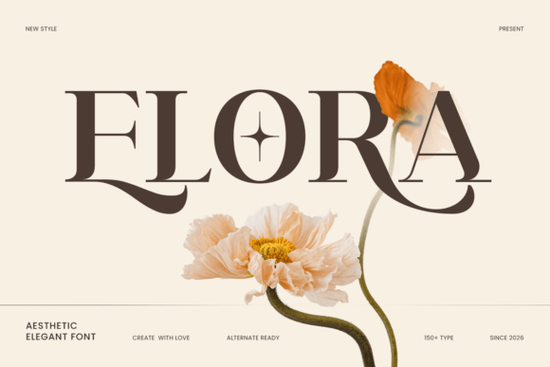
If you're looking for a font that feels both polished and approachable something that works just as well on a wedding invitation as it does on a boutique coffee bag Elora Font is worth your attention. It’s not flashy or overly ornate, but carefully shaped with graceful curves and balanced spacing that make text feel intentional and refined. Designers and crafters who value clarity without sacrificing style often reach for fonts like Elora when they need something that quietly signals quality.
What makes Elora stand out for real projects?
Unlike many “luxury” fonts that sacrifice readability for drama, Elora keeps things clean and legible even at smaller sizes or in longer blocks of text. Its smooth strokes and consistent weight help it hold up across formats: printed labels, digital mockups, Cricut vinyl cuts, or hand-lettered embroidery patterns. You’ll notice how the lowercase a, g, and e have subtle personality without being distracting, and the uppercase letters carry presence without heaviness.
Who uses Elora and where does it fit best?
Small business owners designing their own packaging or Shopify product labels often choose Elora because it pairs easily with minimalist layouts. Print-on-demand sellers appreciate how it elevates greeting cards, wall art, or seasonal mugs without needing extra design tweaks. Crafters find it especially useful for projects like:
- Wedding stationery (invitations, menus, signage)
- Handmade soap or candle labels
- Easter egg designs or Christmas gift tags
- Fashion lookbooks or boutique social media graphics
- Cricut cut files for t-shirts or tote bags
Because it supports over 30 languages including English, Spanish, French, German, Swedish, Portuguese, and Indonesian it’s also a smart pick if you serve multilingual audiences or sell internationally.
How does it compare to other elegant serif fonts?
Elora sits comfortably between classic and contemporary. It’s less formal than Secth Vought Font, which leans into vintage editorial charm, and more grounded than Blades of Fortunes Font, which has stronger calligraphic flair. If you’ve used Behal Font before, you’ll recognize a similar focus on balance and quiet sophistication but Elora offers wider language support and slightly softer contrast between thick and thin strokes.
All three are solid options depending on your project’s tone, but Elora stands out when you want warmth and polish without leaning too far into tradition or trend.
The PUA encoding means alternate characters like stylistic ligatures or swash capitals are accessible directly from your keyboard without needing OpenType panels or Glyphs app. That’s helpful if you’re designing quickly or sharing files with clients who may not have advanced typography tools.
A few things to keep in mind
Elora works best at medium to large sizes think headlines, titles, and short phrases. For body copy in long documents, pair it with a neutral sans-serif (like Inter or Lato) to maintain rhythm and flow. Also, while it’s designed for versatility, avoid stretching or distorting the font manually; its elegance comes from its original proportions.
If you’re building a brand identity, try pairing Elora with a simple geometric sans for contrast or layer it with soft watercolor textures for handmade packaging. It responds well to muted palettes and natural paper stocks, reinforcing that premium-but-approachable feel.